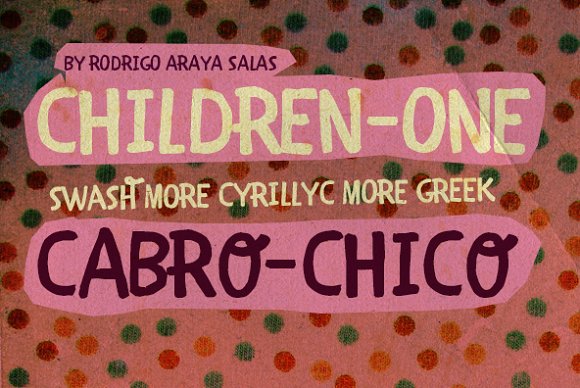
Children One Font
Dive into the realm of lightheartedness and creativity with Children One Font, a playful display font family that mirrors the authentic charm of hand-drawn letters. Each character brims with the innocent energy of childhood, inviting you to express your messages with a touch of whimsy and wonder.
Designed by the talented Rodrigo Typo, Children One Font captures the essence of childlike imagination, transforming your digital creations into captivating masterpieces. It's the perfect choice for adding a personal, endearing touch to your projects, whether you're crafting invitations, designing logos, or creating social media graphics.
With its playful curves and organic lines, Children One Font exudes a sense of joy and freedom. It's as if each letter was drawn by a carefree child, inviting you to embark on a journey of creativity and self-expression.
Embrace the magic of Children One Font today and let your inner child shine through in your designs. Transform your digital creations into delightful expressions of imagination and wonder, leaving a lasting impression on your audience.